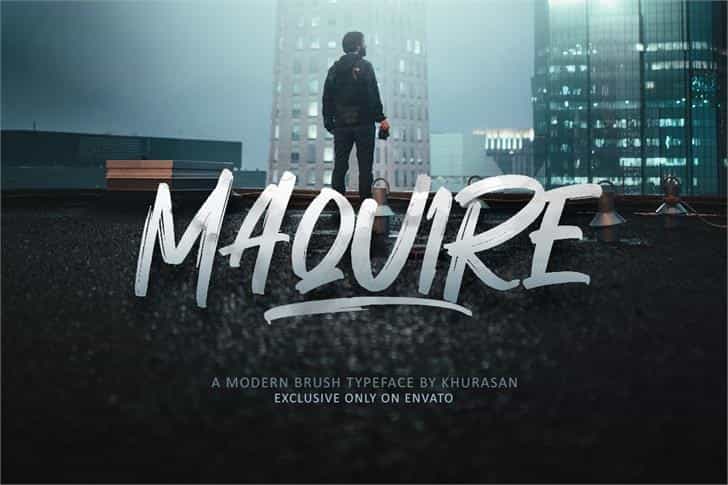
Introducing Maquire Font. This is a power point presentation made by khurasan and it is based on the topic of history of art. The Maquire Brush is a new handwritten type brush font, it is elegant and vintage character font. The Maquire font incorporates all the capital and small cases, multiple language support, currency symbols, figures, & marks.